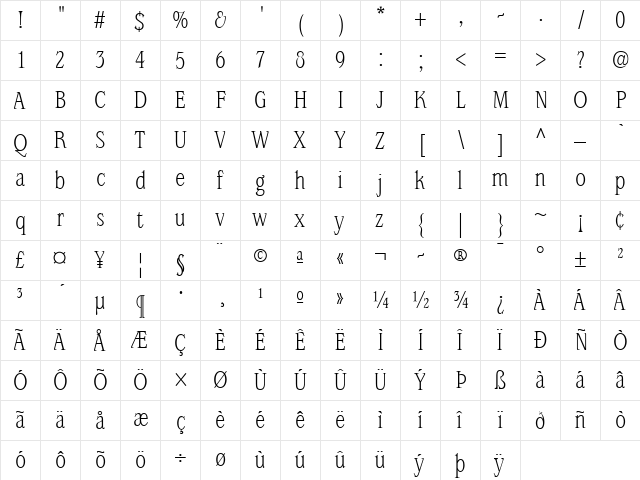
AIAlign Regular
| Foundry | John Pugh |
Design Context for AIAlign Typeface
AIAlign takes a measured approach to typography — its balanced proportions and neutral character make it a reliable workhorse for both digital and print work.